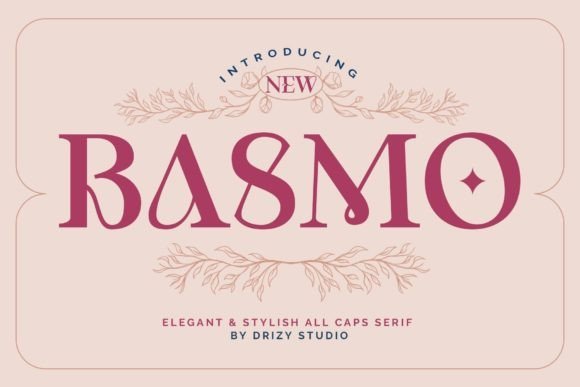
Have you ever been stuck on a design project, struggling to find the perfect font to bring your vision to life? I know I have. That’s why I’m always on the lookout for a font that exudes elegance and sophistication, a font that will elevate my designs and leave a lasting impression.
Enter the Basmo Font, a stylish and refined serif font that’s sure to become your new go-to. With its exquisite character and fashionable flair, the Basmo Font is perfect for designers who want to add a touch of sophistication to their projects. Whether you’re working on a high-end branding campaign or a bespoke invitation, the Basmo Font is sure to deliver.
As a designer, you know how valuable it is to have a reliable and versatile font at your disposal. That’s why the Basmo Font is a must-have in your design arsenal. With its timeless charm and effortless elegance, the Basmo Font is sure to make your designs stand out from the crowd.
Basmo Font Key Features
- Unique Characteristics: Basmo Font features a unique blend of modern and traditional design elements, with a focus on clean lines, geometric shapes, and a subtle nod to Art Deco influences.
- Font Pairing: Basmo Font is designed to be paired with a wide range of other fonts, making it an excellent choice for designers and typographers looking to create unique and visually appealing typography.
Designer Review: Basmo Font
Overall, I found the Basmo Font to be a solid addition to any designer’s toolkit. ✨ One of its standout features is its versatility – it works well in a variety of contexts, from body text to headings, and even as a title font. The font’s clean lines and modern aesthetic give it a professional feel that’s hard to resist.
Another thing I appreciate about Basmo Font is its font weight options. ✨ The font includes a range of weights, from light to bold, which allows designers to easily create visually appealing typography. Additionally, the font’s ligatures and alternate characters add a touch of sophistication to any design.
- ⚠️ While the font is versatile, it may not be the best choice for more creative or artistic projects, as it’s a bit too safe and conventional.
- ⚠️ Some users may find the font’s width to be slightly inconsistent, which can be noticeable in longer lines of text.
Overall, I’d recommend Basmo Font to designers who value simplicity and versatility. While it may not be the most exciting font on the market, it’s a reliable choice for a wide range of projects.
Tips for Getting the Most Out of Basmo Font
Basmo Font is a versatile font that can be used for a variety of design projects. Here are some tips for getting the most out of it:
- Pair Basmo Font with other fonts to create a unique and eye-catching design.
- Use Basmo Font for headings and titles to add a touch of sophistication.
Basmo Font is ideal for:
- Branding and identity design.
- Marketing materials (e.g. flyers, brochures, social media graphics).
- Alternatives to Basmo Font
Montserrat is a modern sans-serif font designed for digital use. It’s ideal for creating a clean and minimalist aesthetic. When to use: For digital projects, such as websites and mobile apps, where readability is crucial.
Comparison to Basmo Font: Montserrat has a more geometric and futuristic feel compared to Basmo Font’s rounded edges and elegant touch. Montserrat is also more versatile and comes in a wider range of weights.